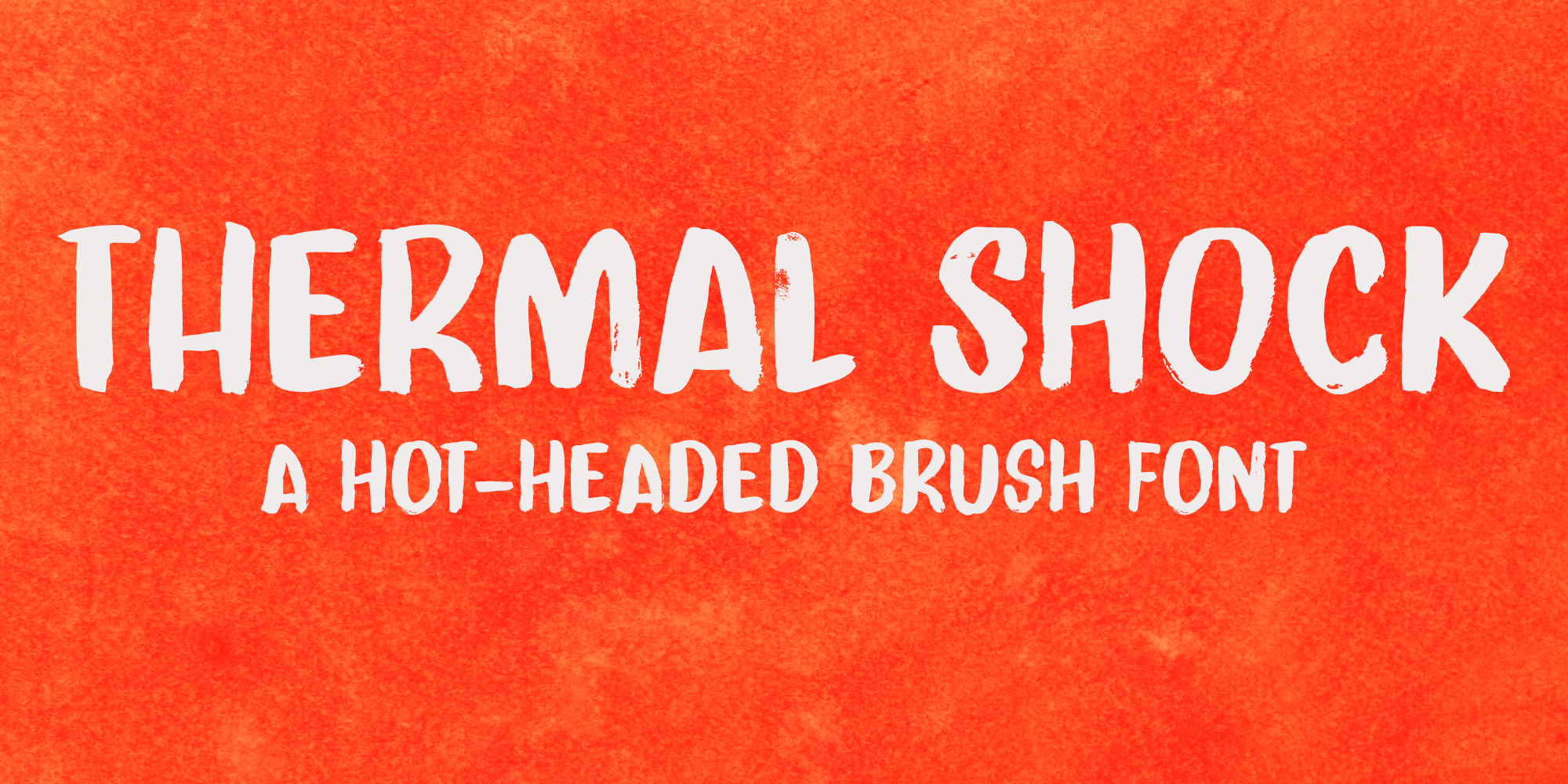
This explosive typeface excels in various high-impact applications including extreme sports branding, energy drink labels, action movie posters, gaming tournament graphics, automotive racing logos, fitness brand identities, electronic music flyers, and industrial product packaging. The Thermal Shock Font delivers raw power through its aggressive letterforms that convey intense energy and dynamic movement with every character.
What makes this font truly exciting is its ability to create instant visual tension through dramatic contrast and electrifying design elements that seem to vibrate with kinetic energy. The boldly engineered characters feature sharp angles, fractured edges, and explosive details that make text appear to be bursting with unstoppable force. Its distinctive personality combines industrial strength with adrenaline-fueled excitement, creating typography that demands attention and refuses to be ignored.
The Thermal Shock Font family includes high-octane variations to meet intense design needs: Regular, Bold, Extra Bold, Condensed, and Expanded styles, plus alternate characters for maximum impact. Each family member maintains the signature explosive character while offering flexibility for creating powerful visual hierarchies that amplify your message.